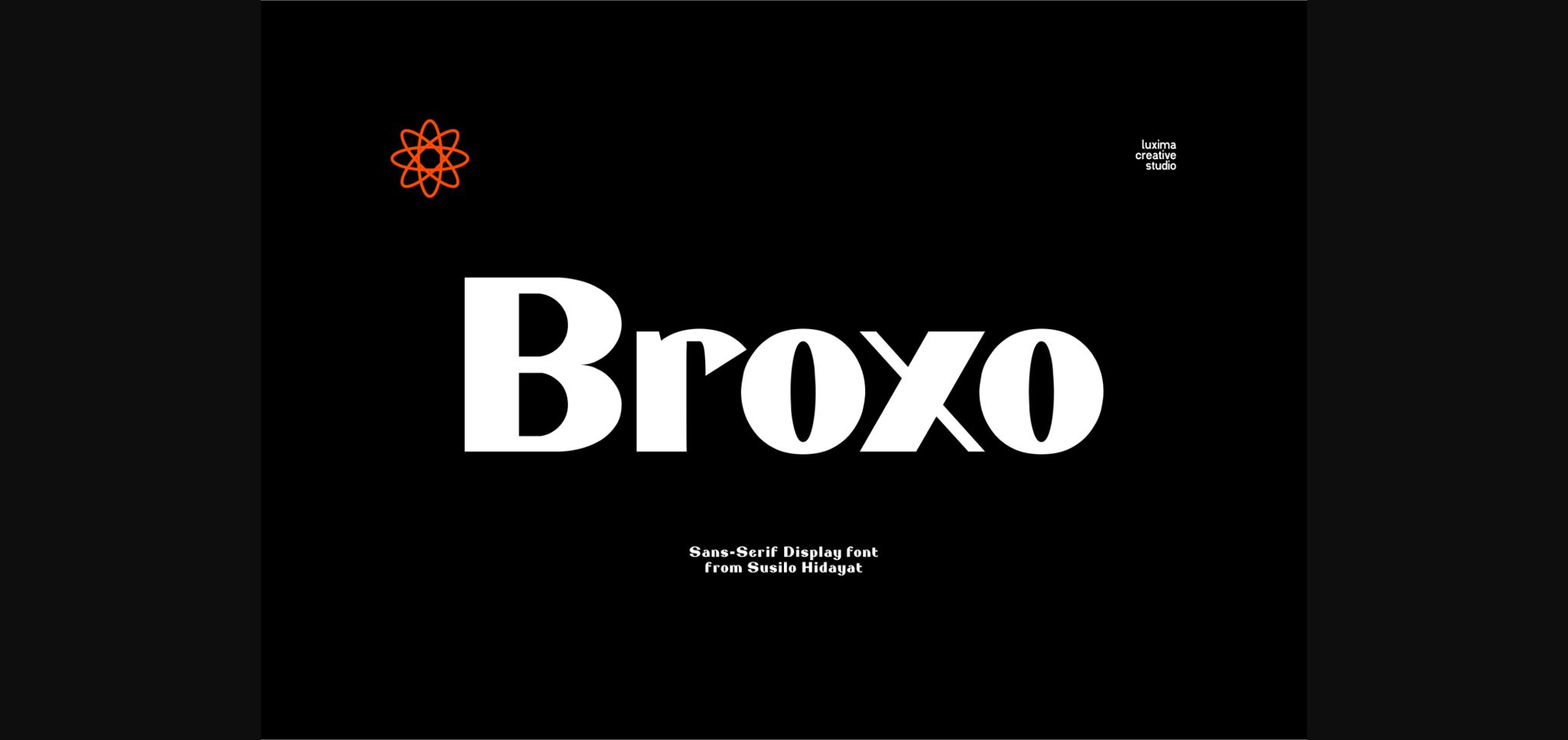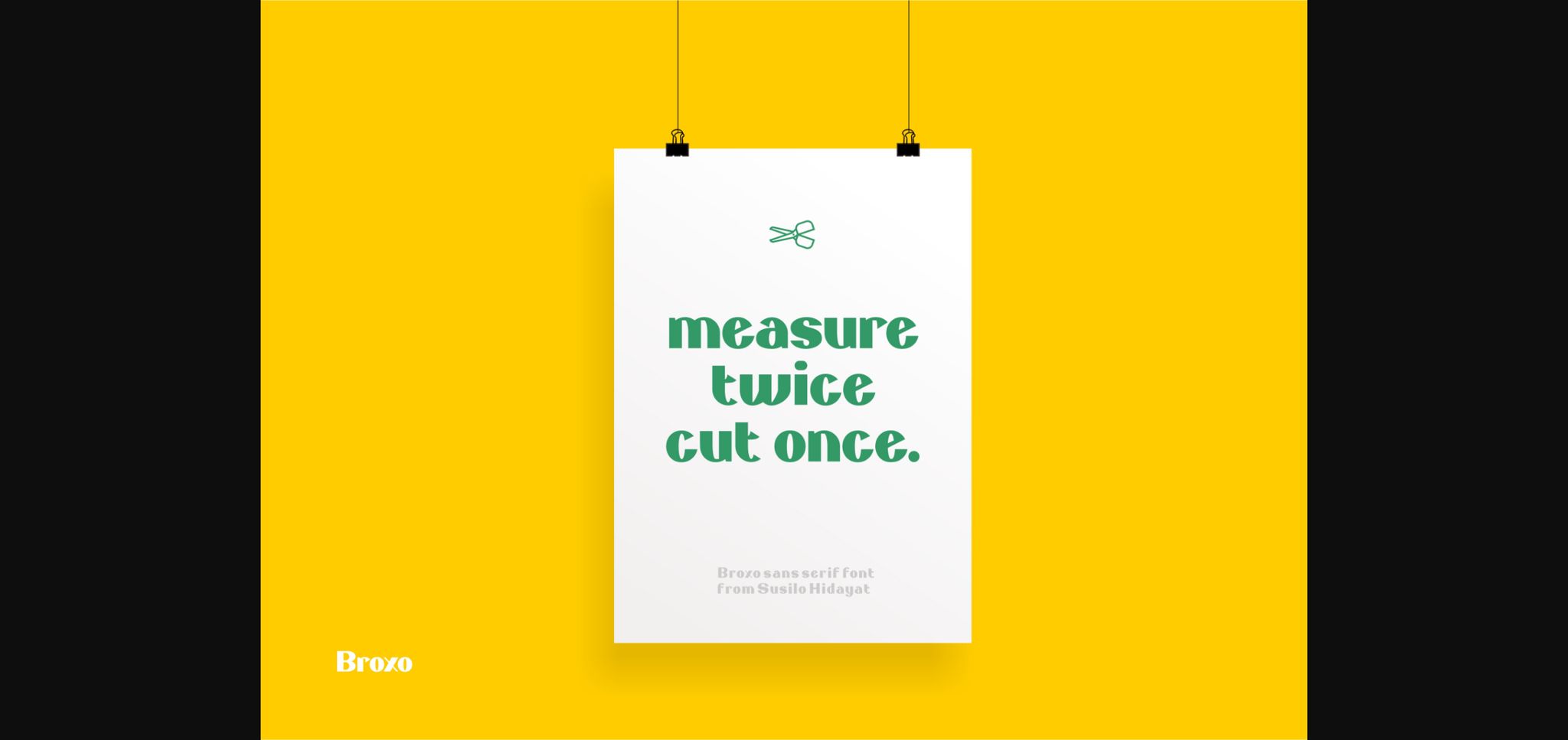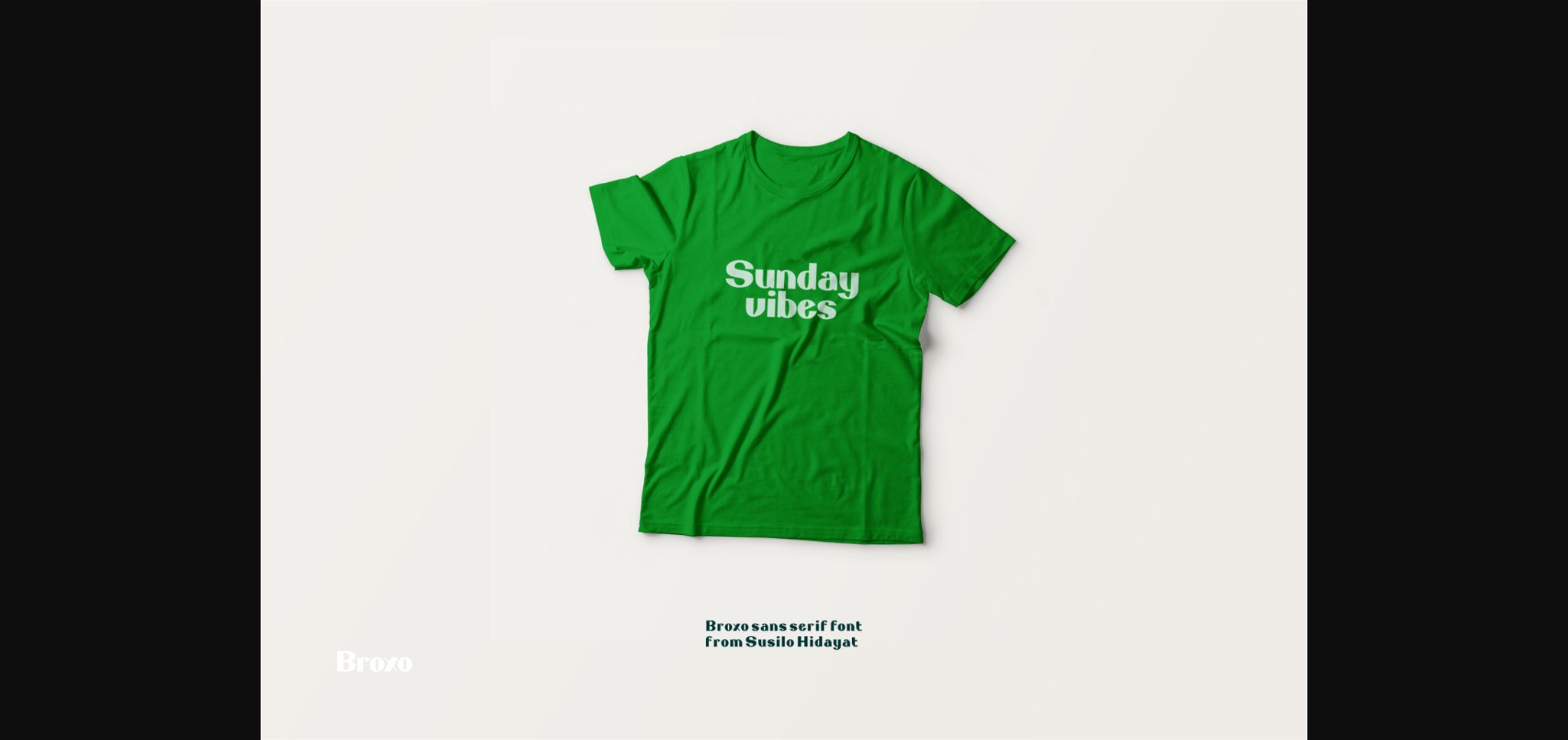
About Broxo Font
Broxo is a solid and stylish sans serif font. Its casual charm makes it appear wonderfully down-to-earth, readable and, ultimately, incredibly versatile. Broxo will look outstanding in any context, whether it’s being used on busy backgrounds or as a standalone headline!